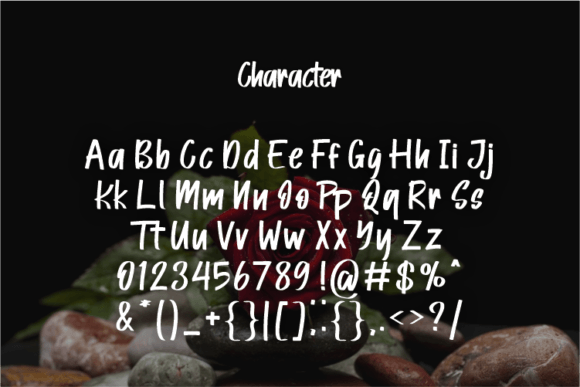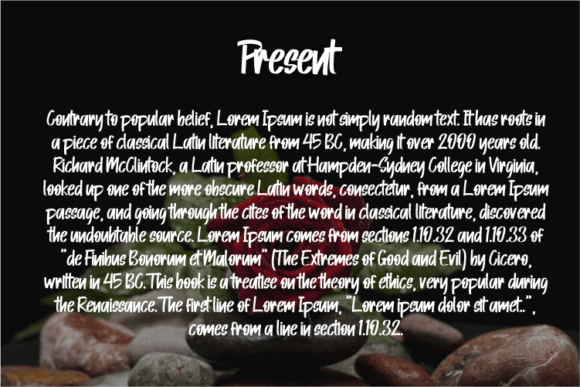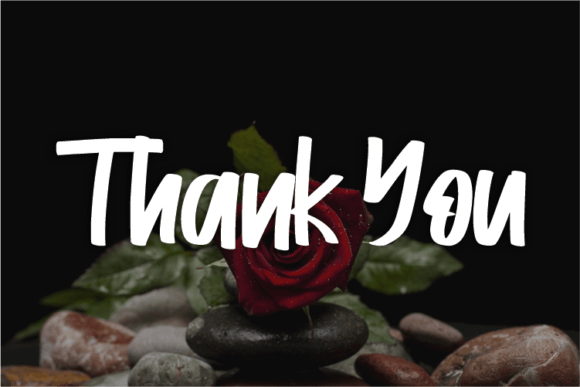
About Cao February Font
Cao February is a modern script typeface that combines simplicity with refined elegance. Designed with smooth curves and a contemporary handwritten feel, this font brings a touch of luxury and sophistication to any project. Whether you’re designing logos, fashion branding, magazine covers, or elegant product packaging, Cao February delivers a polished and upscale look that stands out.
Its flowing letterforms and stylish character set make it a go-to choice for designers looking to add personality without losing class. Cao February strikes a perfect balance between modern minimalism and artistic flair, making it suitable for both editorial and commercial applications.
Elegant, Stylish, and Effortlessly Modern
Cao February was created to be clean yet expressive. It’s a script font that avoids clutter while retaining a handwritten charm. The letter connections are smooth, the lines are graceful, and the spacing is optimized for readability and visual appeal.
This font brings a professional and luxurious tone to your branding, while still feeling approachable and artistic. It can help elevate your brand voice with minimal effort.
Perfect for Luxury Branding & Design
Here are a few ideal use cases for Cao February:
Luxury logos – Give your brand an elegant edge with sophisticated curves.
Fashion labels – Enhance your brand presence with a high-end aesthetic.
Magazine titles – Make editorial layouts sleek and modern.
Social media graphics – Bring refined energy to Instagram posts and quotes.
Packaging design – Add style to beauty, lifestyle, or artisanal products.
Wedding stationery – Perfect for invitations, save-the-dates, and signage.
This font works beautifully in both small headlines and large-scale print designs. The letters flow naturally, helping you create visually appealing compositions with ease.
Features and Compatibility
It also supports multilingual characters and includes a full set of upper and lowercase letters, numerals, punctuation, and ligatures. This gives you the flexibility to use the font in a wide variety of layouts and languages.
Add Class and Clarity to Your Designs
If you’re looking for a script font that feels both elegant and clean, Cao February is the perfect solution. It’s not overly embellished or exaggerated. Instead, it focuses on timeless style and legibility — ideal for today’s modern brands that want to stand out without shouting.
From fashion to lifestyle, from digital quotes to printed packaging, this font offers a versatile and professional look. Add Cao February to your design toolkit and see how it brings your concepts to life with just the right touch of charm and elegance.